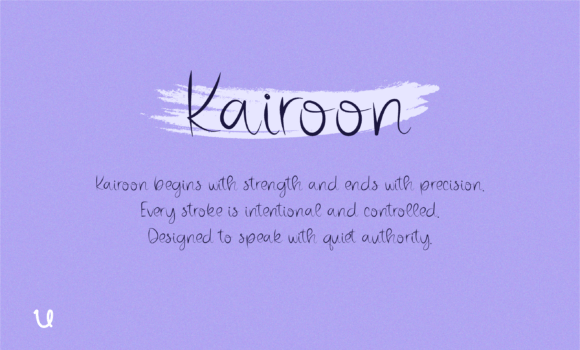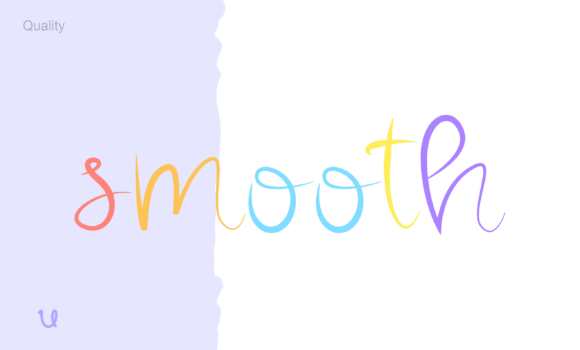
Introduction to Kairoon Font
Unveiling “Kairoon” – an alluring font crafted with exquisite attention-to-detail.
Infused with a sumptuous aesthetic, Kairoon bridges the gap between artistic brilliance and practical usability Its calligraphy-centred design infuses elegance and artistic charm into your text, transforming every written word into a visual masterpiece.
Key Features of Kairoon Font
Why Choose Kairoon Font?
Kairoon Font offers exceptional quality and versatility, making it a valuable addition to your design toolkit. Whether you’re creating for personal projects or commercial use, Kairoon Font delivers professional results.